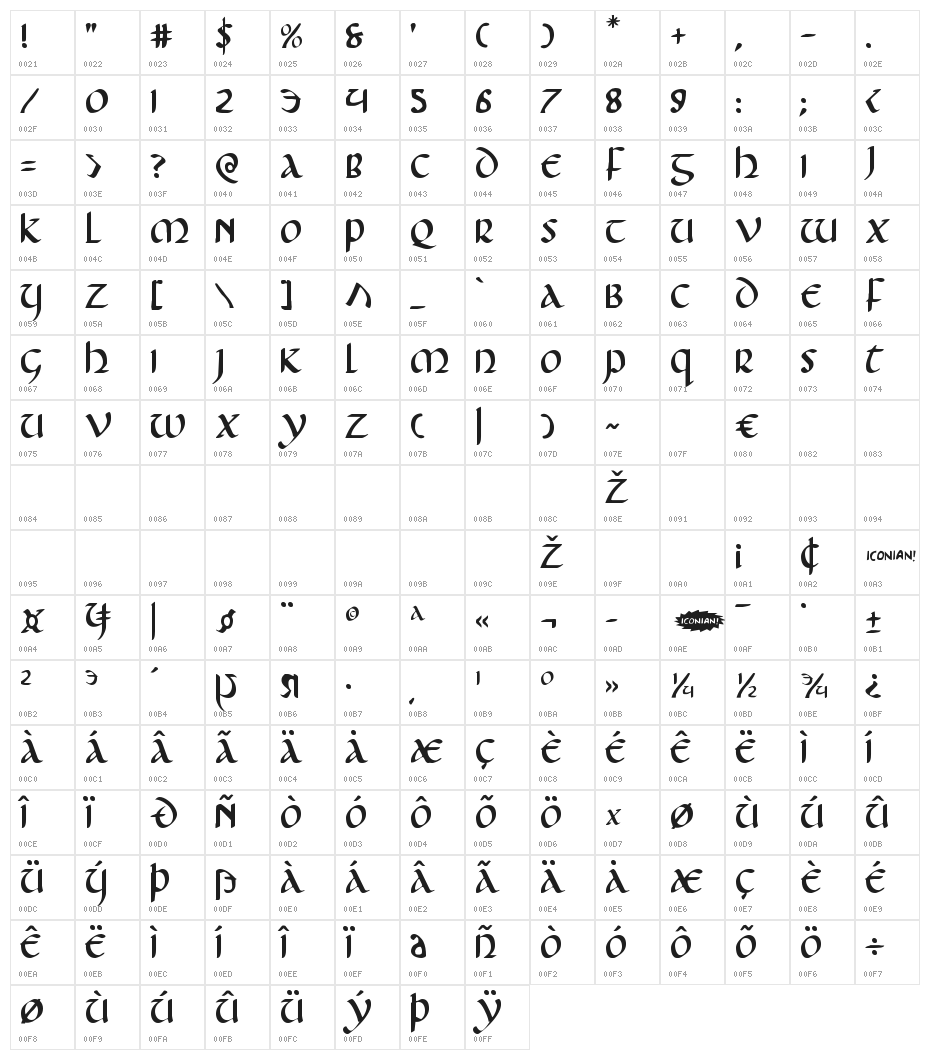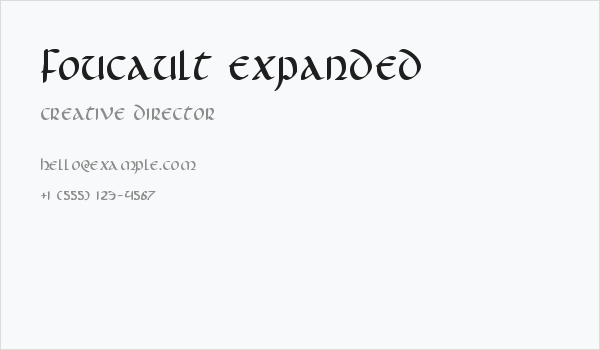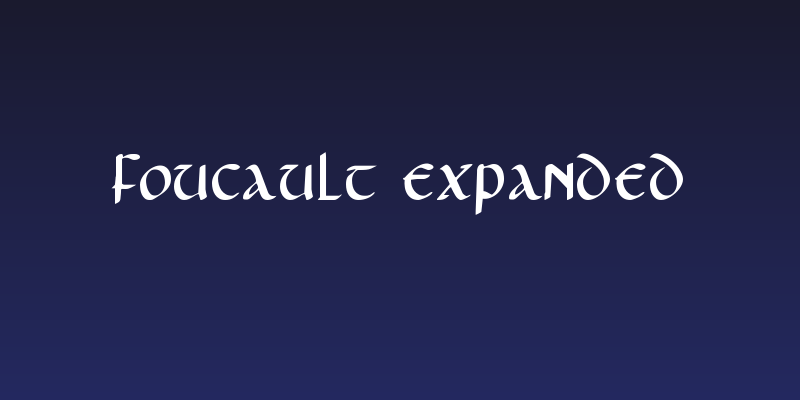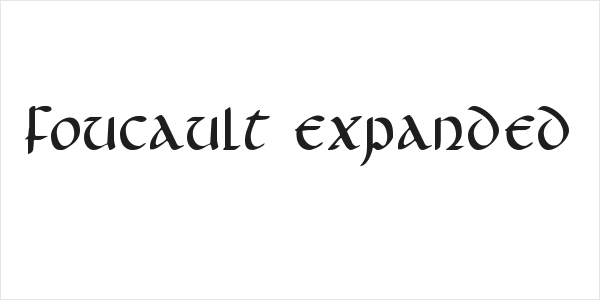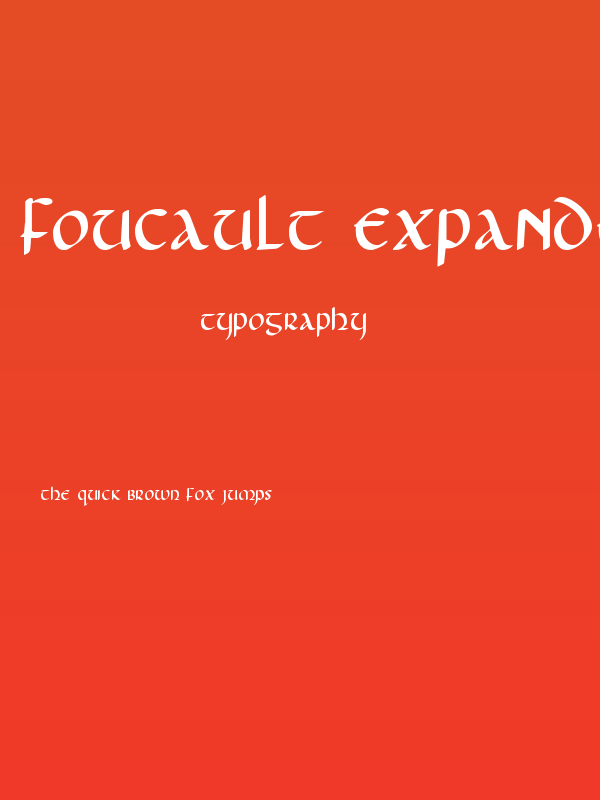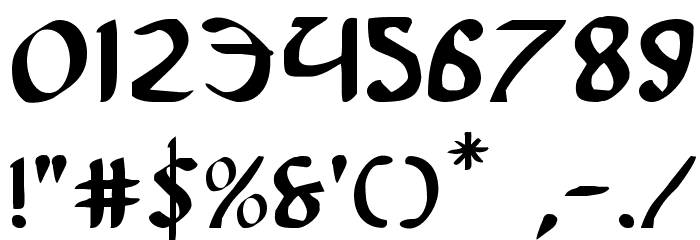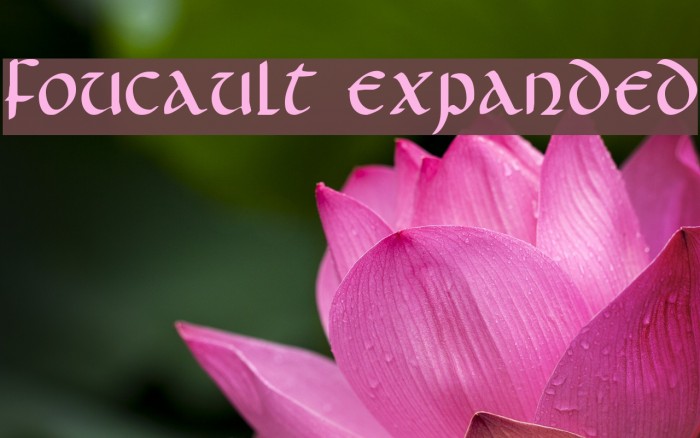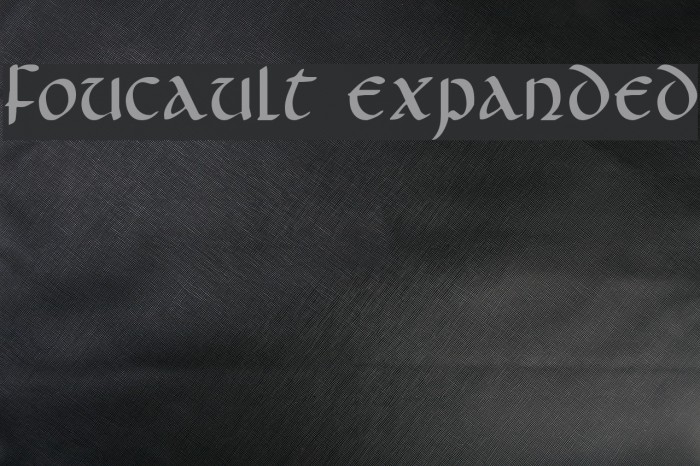
Foucault Expanded Font
Foucault Expanded Description
This font features a distinctive and bold style with a strong calligraphic influence. The characters are designed with sharp, angular edges and a flowing, cursive-like form that gives it a dynamic and energetic appearance. The uppercase and lowercase letters maintain a consistent style, with the uppercase being slightly more pronounced. Numbers and special characters follow the same design principles, ensuring uniformity across all glyphs. The overall aesthetic is reminiscent of medieval script, making it suitable for projects that require a historical or artistic touch.
| Proposed Projects | Ideal for use in historical documents, artistic projects, branding for luxury goods, or any design requiring a medieval or artistic flair. |